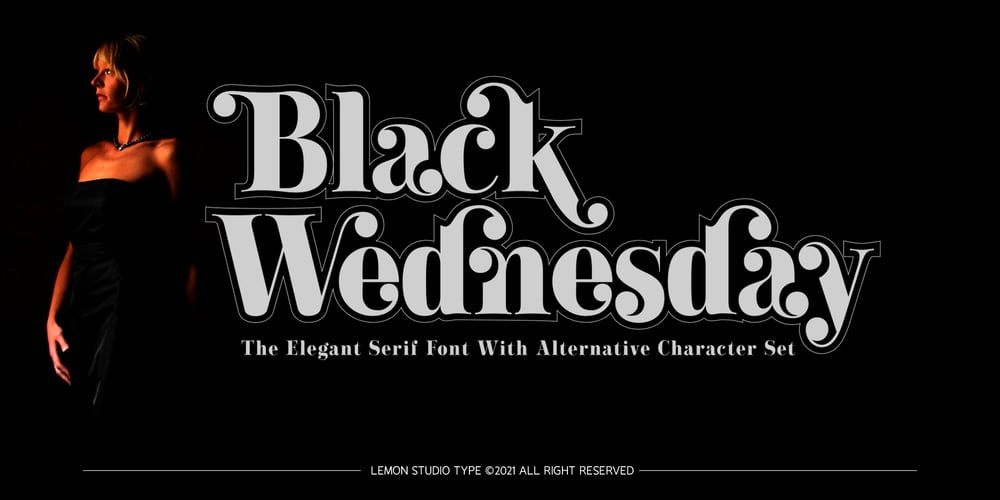
Black Wednesday
Black Wednesday font
Black Wednesday Font Family was designed by Herpin Maulana and published by Lemon Studio Type. Black Wednesday contains 1 styles and family package options. Black Wednesday is a bold serif typeface in modern and classy style. OpenType features include more Alternative character sets.Black Wednesday is ideal for headlines, headers, logos, labels, packaging, postcards, presentations, magazines, invitations, etc.